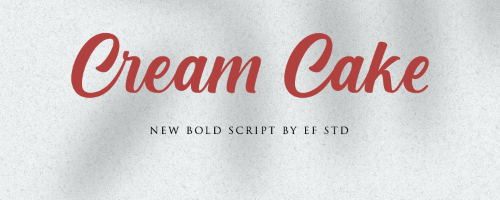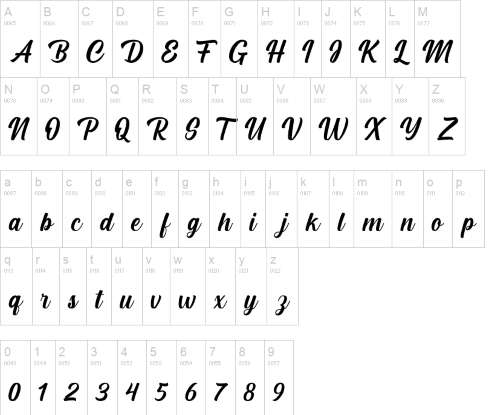
Cream Cake Font
Cream Cake Font is a soft, elegant display typeface featuring both lowercase and uppercase characters, along with beautiful contextual alternates and ligatures. Its smooth curves and stylish details make it perfect for branding, invitations, packaging, quotes, and creative designs that need a sweet, refined, and decorative touch.
➤ Font Name: Cream Cake
➤ Designer: Ef Studio
➤ Style: Calligraphy
➤ Designer: Ef Studio
➤ Style: Calligraphy